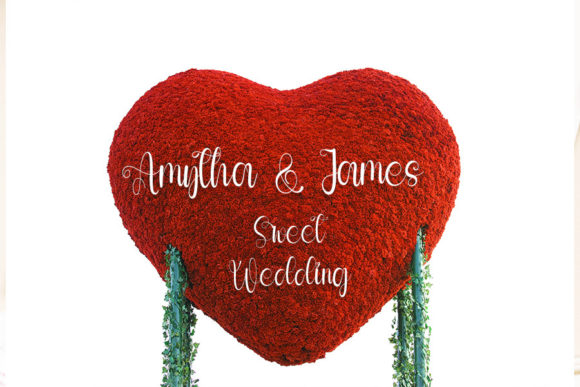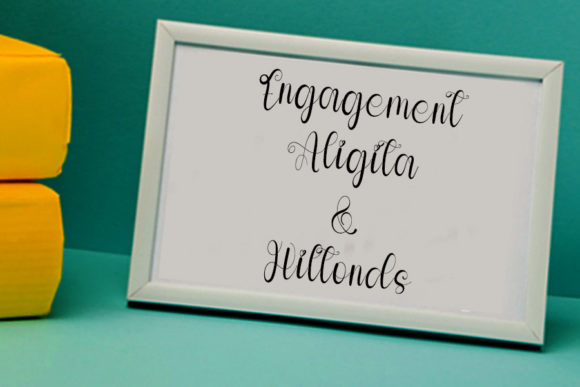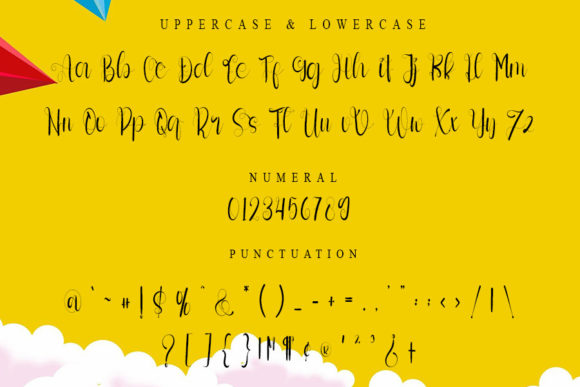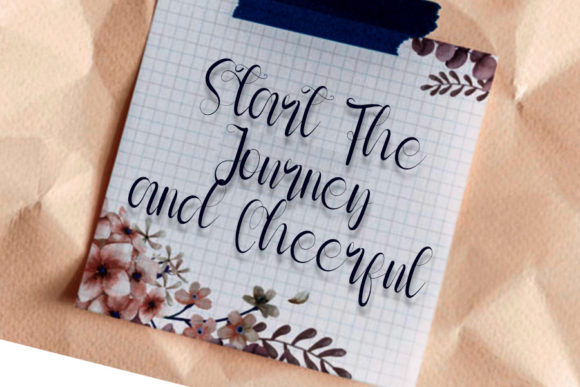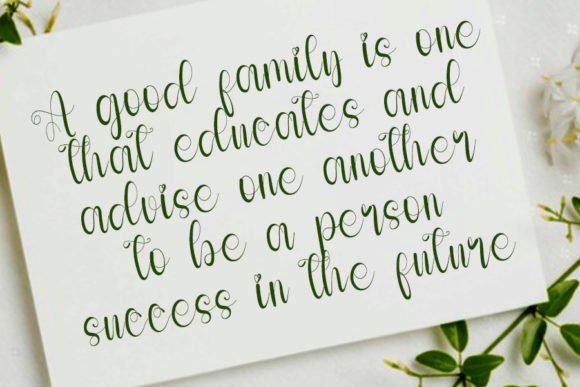
Amytha Font
About Amytha Font
Amytha is a delicate and elegant script calligraphy font. Its distinct and well rounded letters make this font a masterpiece. Fall in love with its incredibly versatile style and use it to create spectacular designs!